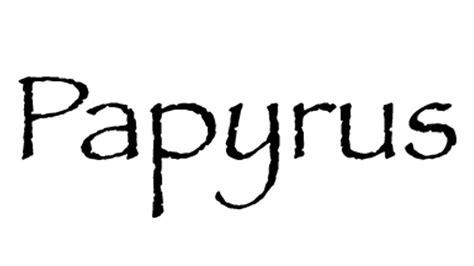
Papyrus Font Meme. Press the ← and → keys to. Web papyrus is a widely used and available typeface that was created to mimic and evoke of ancient text on papyrus paper.
Web papyrus is a widely used and available typeface that was created to mimic and evoke of ancient text on papyrus paper. Press the ← and → keys to.
Press the ← and → keys to. Web papyrus is a widely used and available typeface that was created to mimic and evoke of ancient text on papyrus paper.